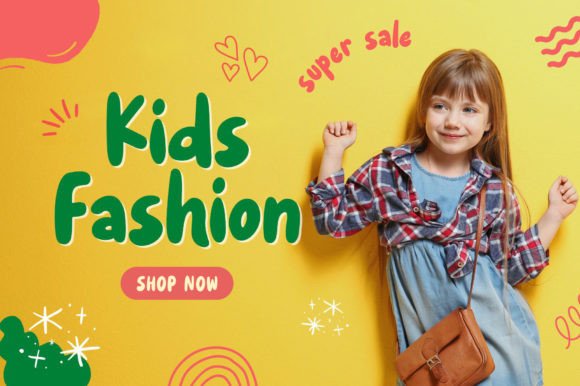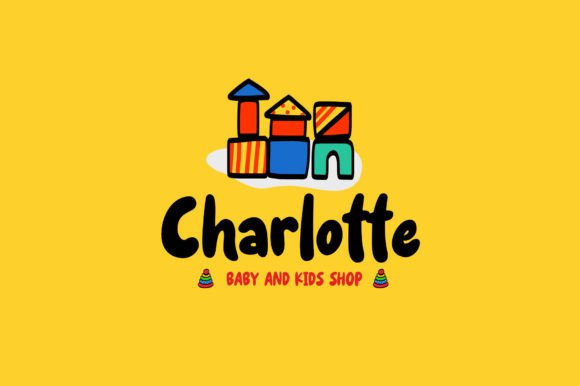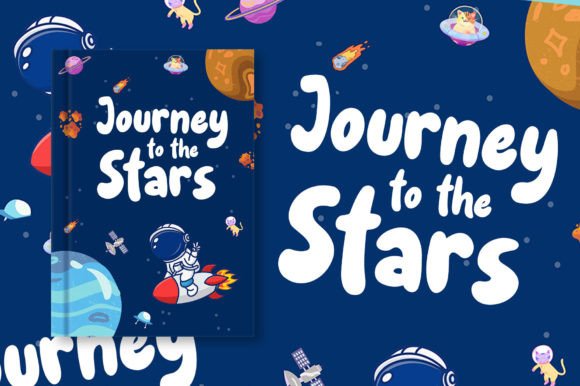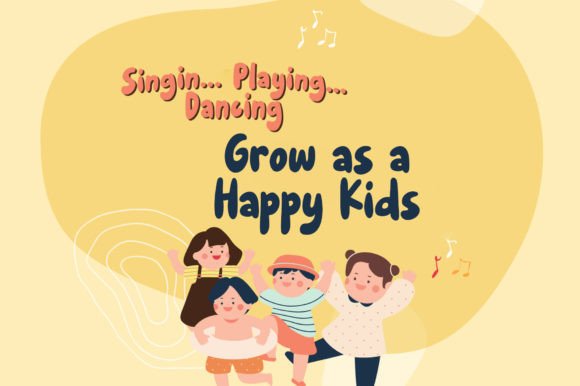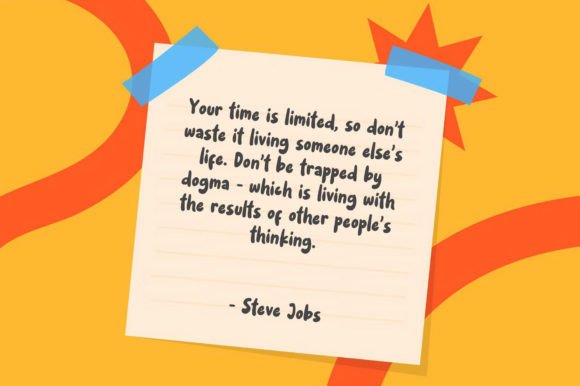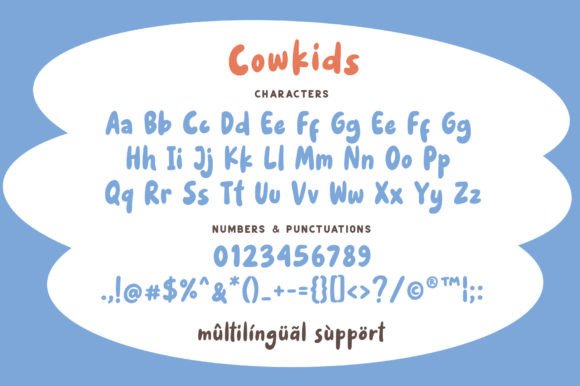
Cowkids Font: Adding a Touch of Whimsy and Fun to Your Designs
In the world of typography, fonts play a crucial role in conveying the tone and personality of a design. If you’re looking for a font that exudes playfulness, creativity, and energy, look no further than Cowkids Font. This quirky and charming font is perfect for designers and crafters who want to add a touch of whimsy and fun to their designs.
The Characteristics of Cowkids Font
Cowkids Font is a unique and eye-catching font that boasts well-formed letters with a mix of unique shapes and playful details. The font’s design is characterized by its lighthearted and cheerful appearance, making it perfect for designs that require a touch of personality and charm. Whether you’re working on a logo, poster, or any other design project, Cowkids Font is sure to bring a smile to your audience’s faces.
What Makes Cowkids Font Special?
So, what sets Cowkids Font apart from other fonts? Here are a few key features that make it a standout:
- Quirky and Playful: Cowkids Font is designed to be fun and playful, with letters that add a sense of whimsy and energy to any design.
- Unique Shapes: The font features a mix of unique shapes and playful details that create a sense of creativity and imagination.
- Well-Formed Letters: Despite its playful nature, Cowkids Font is made up of well-formed letters that are easy to read and recognize.
- Lighthearted and Cheerful: The font’s lighthearted and cheerful appearance makes it perfect for designs that require a touch of personality and charm.
Cowkids Font is a versatile font that is perfect for a wide range of design projects, including:
- Logos: Add a touch of personality and whimsy to your logo with Cowkids Font.
- Posters: Create eye-catching posters that grab attention with this fun and playful font.
- Crafting Projects: Whether you’re working on a scrapbooking project or creating handmade cards, Cowkids Font is a great choice.
Tips for Using Cowkids Font
Here are a few tips for getting the most out of Cowkids Font:
- Use it as a Headline Font: Cowkids Font is perfect for headlines and titles, where its playful and whimsical nature can really shine.
- Pair it with Other Fonts: Experiment with pairing Cowkids Font with other fonts to create a unique and interesting contrast.
- Don’t be Afraid to Experiment: Cowkids Font is a versatile font that can be used in a wide range of design projects, so don’t be afraid to experiment and try new things.
In conclusion, Cowkids Font is a unique and charming font that is perfect for designers and crafters who want to add a touch of whimsy and fun to their designs. With its quirky and playful design, well-formed letters, and lighthearted and cheerful appearance, Cowkids Font is sure to bring a smile to your audience’s faces. Whether you’re working on a logo, poster, or crafting project, Cowkids Font is a great choice.